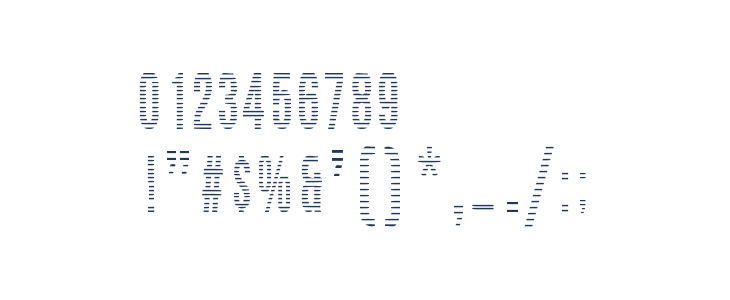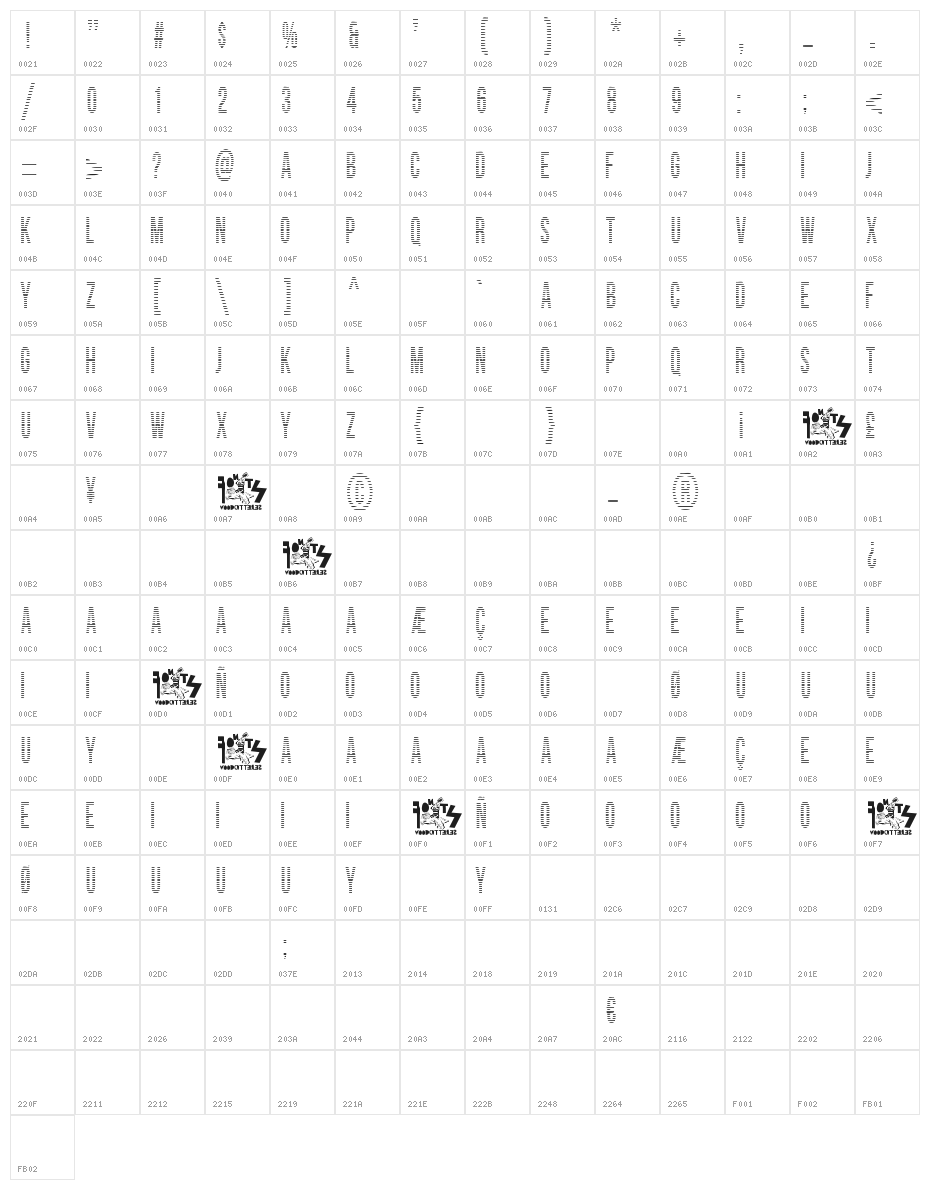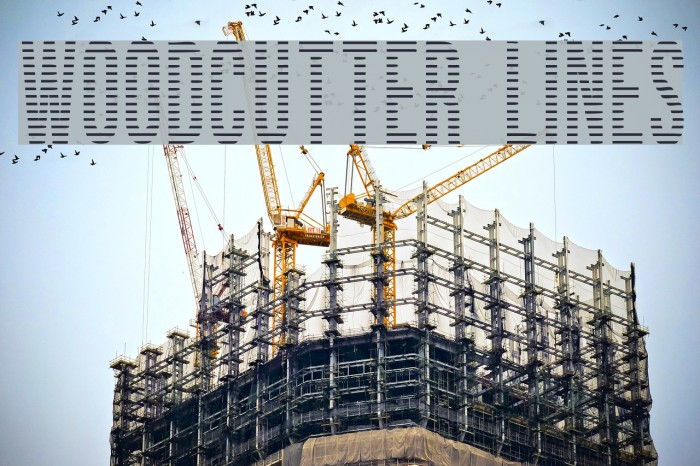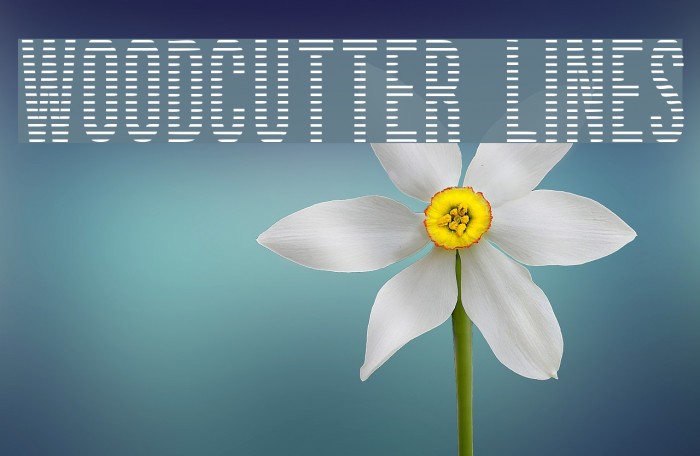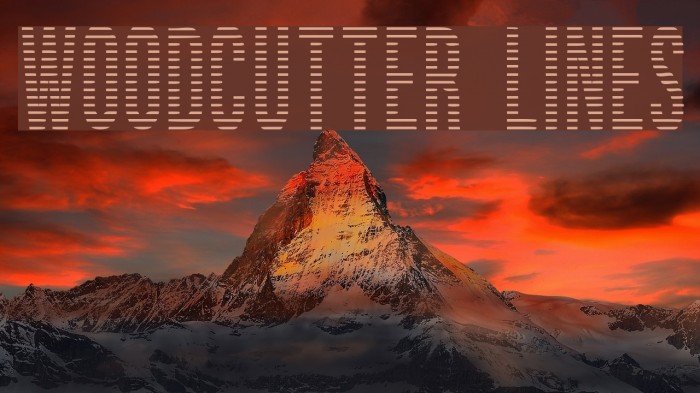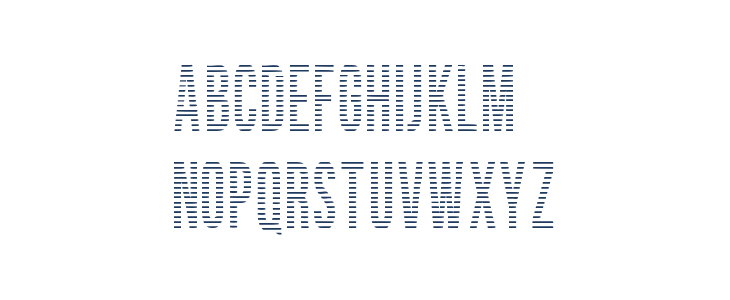
woodcutter lines Font
woodcutter lines Description
This font features a unique design with horizontal lines cutting through each character, creating a striped effect. The uppercase letters are bold and evenly spaced, giving a sense of uniformity and strength. The numbers and special characters follow the same pattern, ensuring consistency across all glyphs. The style is reminiscent of industrial or mechanical themes, making it stand out with its distinctive appearance. The font's linear design adds a modern twist, while maintaining readability despite its decorative nature.